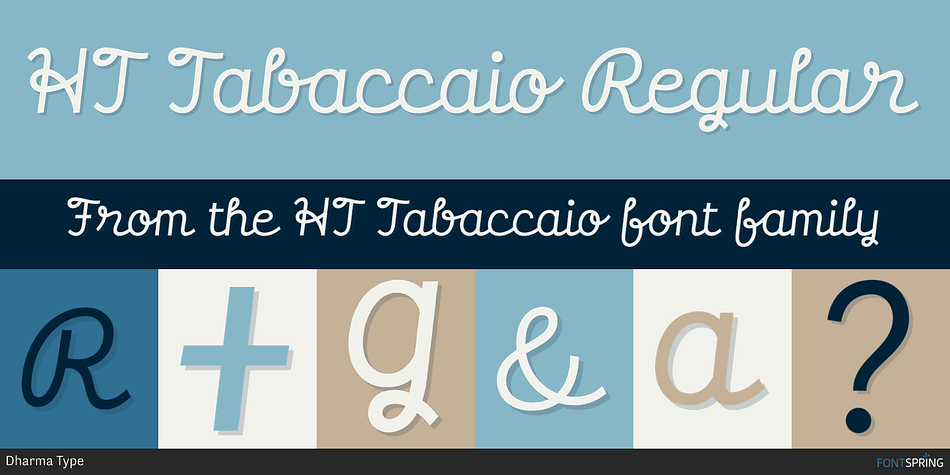
HT Tabaccaio Regular
HT Tabaccaio is a script font published by Dharma Type.
Retro script fonts inspired by shopfront lettering and hand-painted wall advertisements from 1950s Italy.
They capture the nostalgic charm of mid-century Italian streets, blending elegance with a handcrafted feel.
HT Tabaccaio is a casual and versatile script. Its very unique kern, loop, and dot makes it unforgettable look. HT Tabaccaio is well-suited for product design, books covers, film posters, branding, magazines, signage and other creative projects.